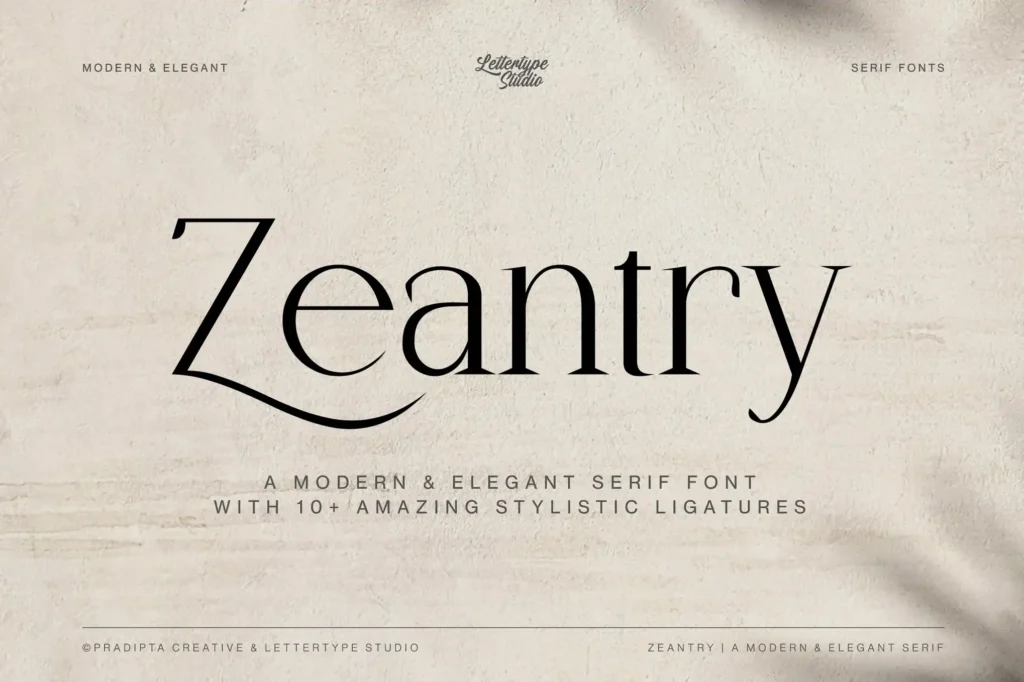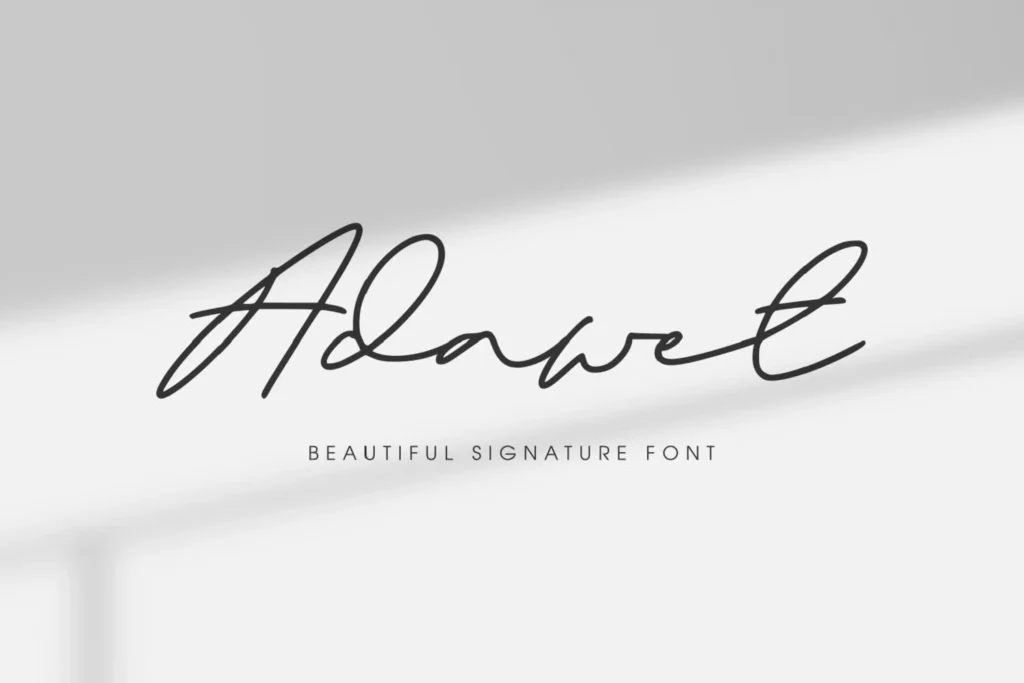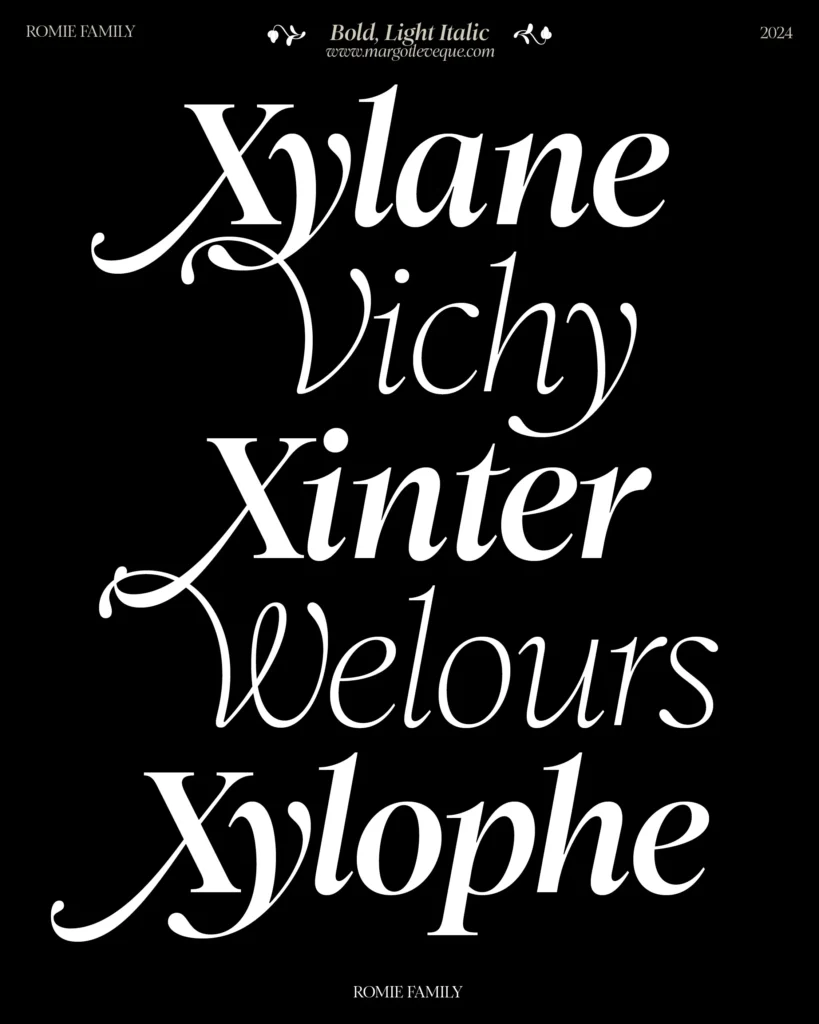
20 Trendy Aesthetic Fonts to Upgrade Your Designs in 2025
The Evolution of Aesthetic Typography in 2025
Typography in 2025 is more than just making words readable—it’s a way to tell stories. Fonts bring emotion, personality, and meaning to designs. As brands and creators try to stand out in a crowded digital space, fonts have become tools for self-expression, not just text. This year, designers are looking for more real and unique styles. They are using natural imperfections, flexible designs, and bold new ideas to create connections in a world filled with AI-generated content.
From retro-style script fonts that bring back the warmth of the 1970s to futuristic 3D fonts that break the rules of flat design, typography is changing how we communicate visually. This guide explores 20 carefully chosen fonts that reflect these trends. These fonts do more than look good—they offer creative options for branding, magazines, and digital designs.
20 Best Aesthetic Fonts for 2025: In-Depth Analysis
1. Belgan Aesthetic
• Style: A feminine serif font with soft curves and stylish letter connections.
• Key Features: This font mixes classic elegance with a simple, modern look. The bold and thin strokes, along with subtle decorative touches, make it perfect for luxury designs. It also includes special font options to create unique word designs.
• Best For: Wedding invitations, high-end beauty product packaging, and fashion magazine headlines.
• Tip: Pair it with Work Sans for body text to keep it stylish yet easy to read. If you’re printing, try using gold or silver foil to make it look even more elegant.
2. Romie
• Style: A serif font with a calligraphy feel and a modern touch.
• Key Features: Comes in 12 styles (including italics) and works in over 300 languages. Its smooth curves and balanced design make it easy to read on screens and in print.
• Best For: Magazines, luxury brand stories, and packaging with multiple languages.
• Tip: Take advantage of its language support for global projects. For a stylish look, pair it with soft colors like Mocha Mousse (#A47864), which blends vintage and modern vibes.
3. Aerisa
• Style: A sharp and clean geometric serif.
• Key Features: The precise angles and even letter shapes give it a modern yet classic look. It’s great for logos and titles that need to feel both strong and elegant.
• Best For: Tech brands, architecture portfolios, and fancy event invitations.
• Tip: Use gradient effects in digital designs to highlight their clean shapes. Avoid mixing it with overly decorative fonts to keep the design sharp and easy to read.
4. Adawet
• Style: A flowing handwritten script with a natural, imperfect feel.
• Key Features: Looks like real brushstrokes, giving it a personal and unpolished style. It includes over 70 special letter connections to make words feel more natural. Great for designs that need a human touch in a world full of AI-generated content.
• Best For: Handmade product labels, personal blogs, and boutique café logos.
• Tip: Use it on textured paper backgrounds in print to enhance its handmade feel. Stick to short phrases for the best impact.
5. Zeantry
• Style: A serif font inspired by 18th-century lettering but with a modern touch.
• Key Features: Comes in 18 different weights and supports multiple languages. Its unique curves and details give it a classic, historical feel while staying easy to read on screens.
• Best For: Rebranding heritage businesses, book covers, and museum signs.
• Tip: Pair it with black-and-white photos to highlight its fine details. Use italics for quotes in magazine or book layouts.
6. Minakoe
• Style: A soft and elegant serif with stylish letter connections.
• Key Features: Made for beauty and fashion designs, its smooth curves and small letters create a delicate look. It also includes special letter combinations for custom text styling.
• Best For: Cosmetics branding, fashion magazine titles, and floral packaging.
• Tip: Mix it with bold, simple fonts like Neue Montreal for contrast. Avoid using all capital letters to keep its soft and graceful style.
7. RST Thermal
• Style: A flexible font that mixes classic 16th-century French lettering with modern design.
• Key Features: You can adjust its thickness and size easily, making it work for both small text and large headings. Its smooth, flowing letters make it easy to read on screens.
• Best For: Websites, app interfaces, and magazine body text.
• Tip: Adjust the size settings to make it clearer on mobile screens. Pair it with Lato for a balanced and easy-to-read digital look.
By learning how to use these 20 fonts, you’ll create designs that don’t just follow trends—they set them.